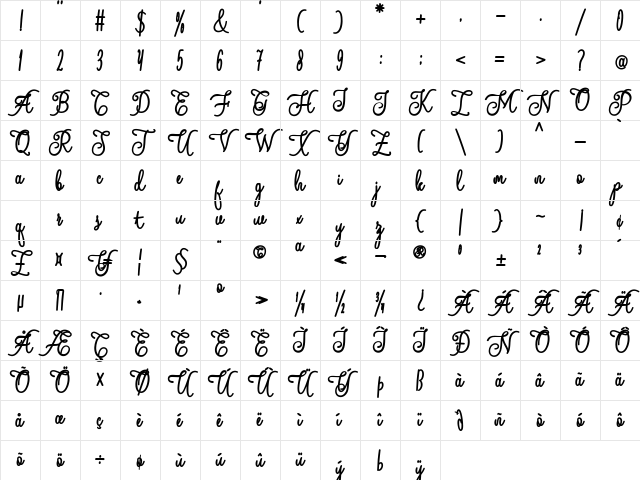
Complete Andalan art design glyph index. Displaying only characters natively supported by Andalan art design font.
Andalan is a composed and adaptable typeface that performs quietly and consistently across a wide range of design contexts.